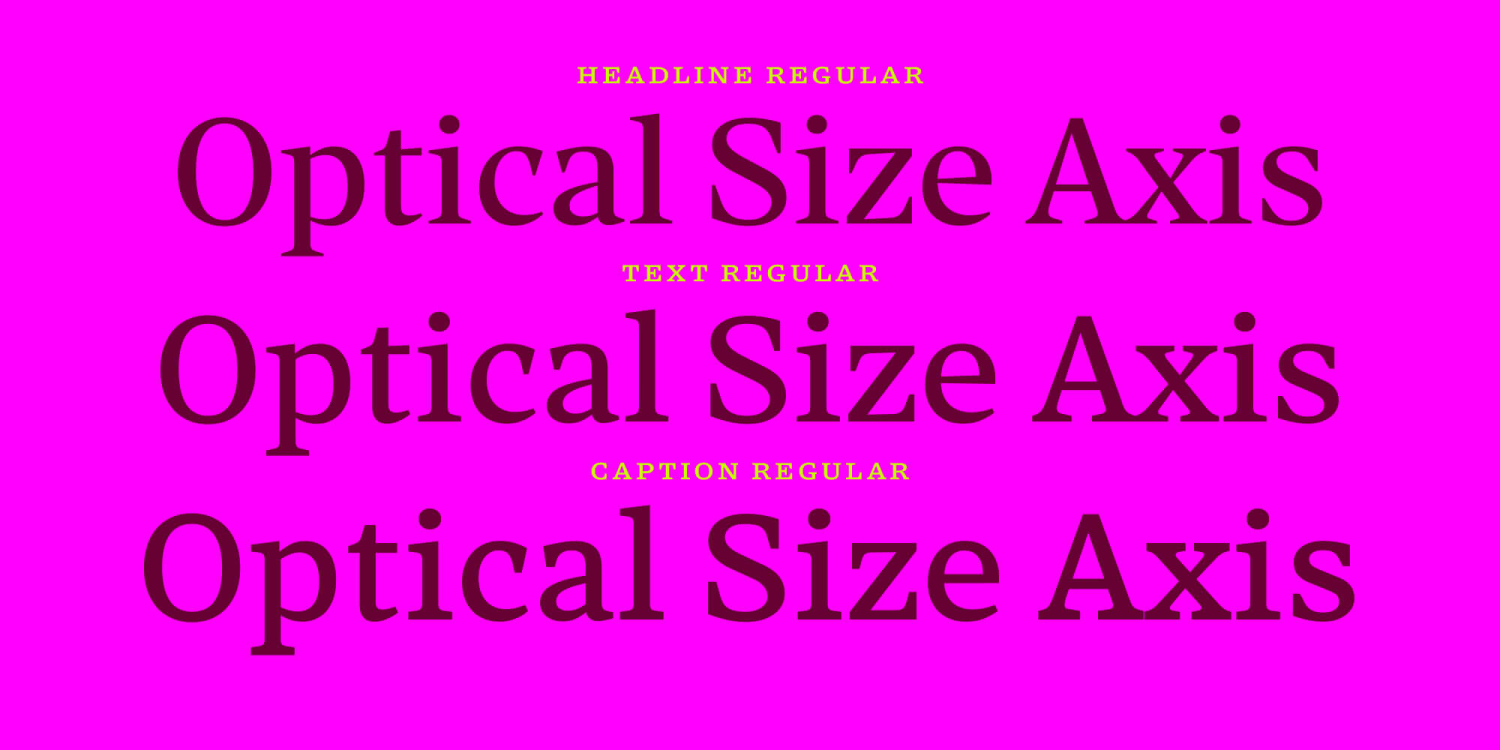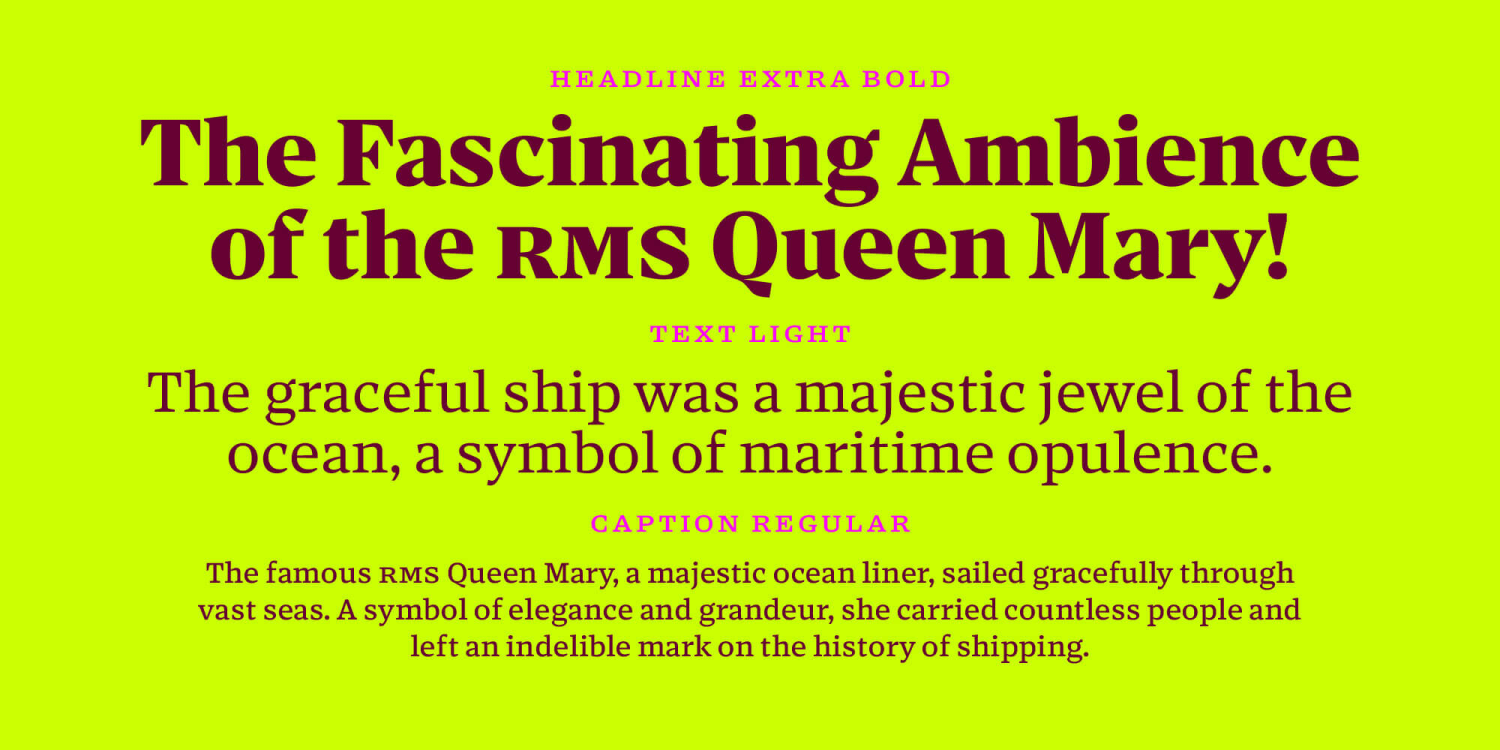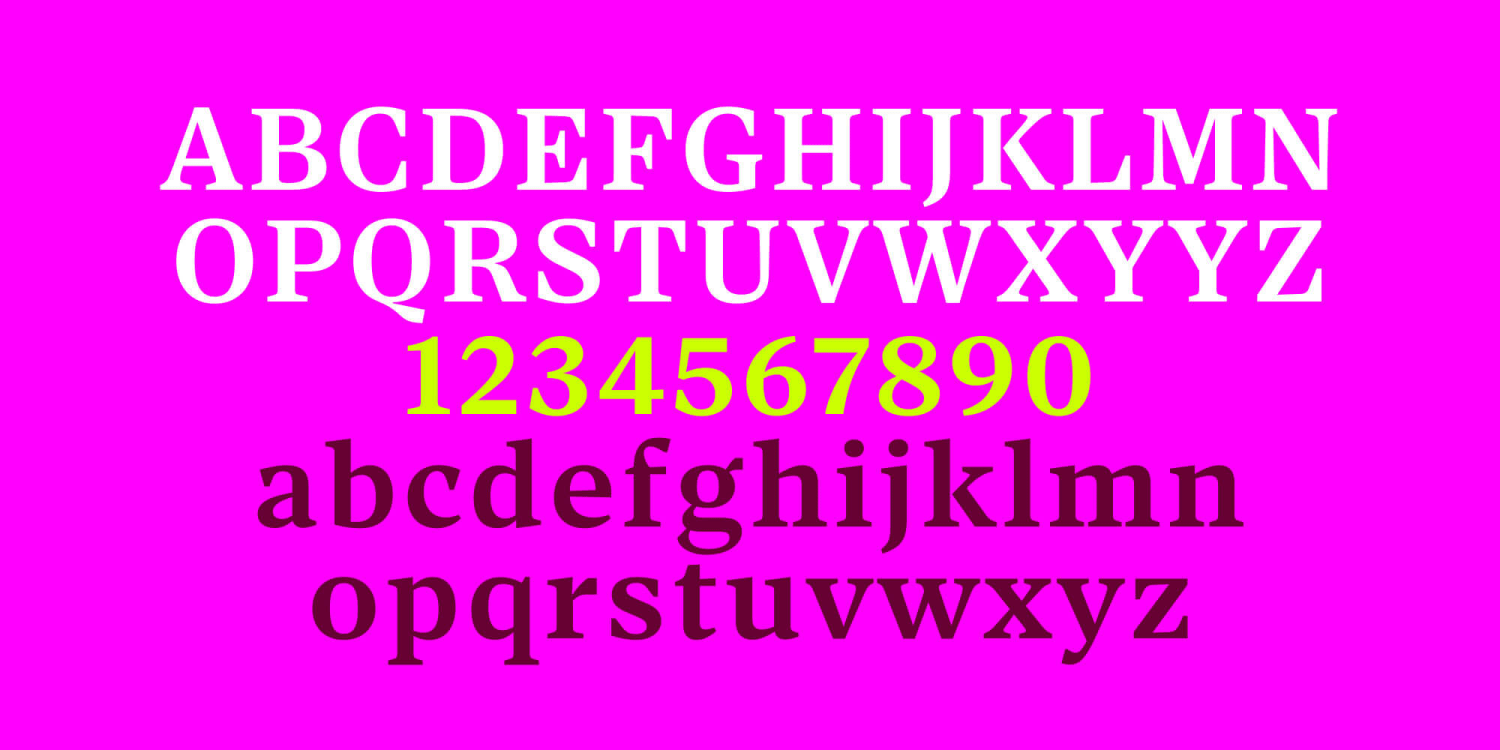
About Corsario VF
Corsario is a variable font family with an optical size axis and a weight axis, tailor-made for the demands of magazines and editorial design, offering a unique blend of flexibility and style. Corsario comes as a variable font with 2 axes (Optical Size…